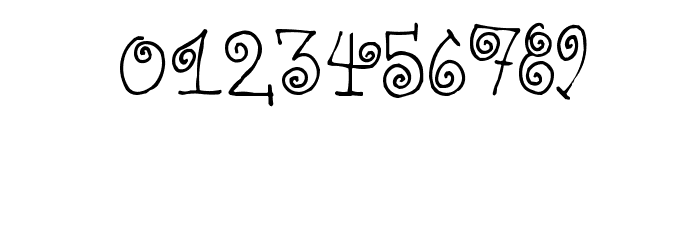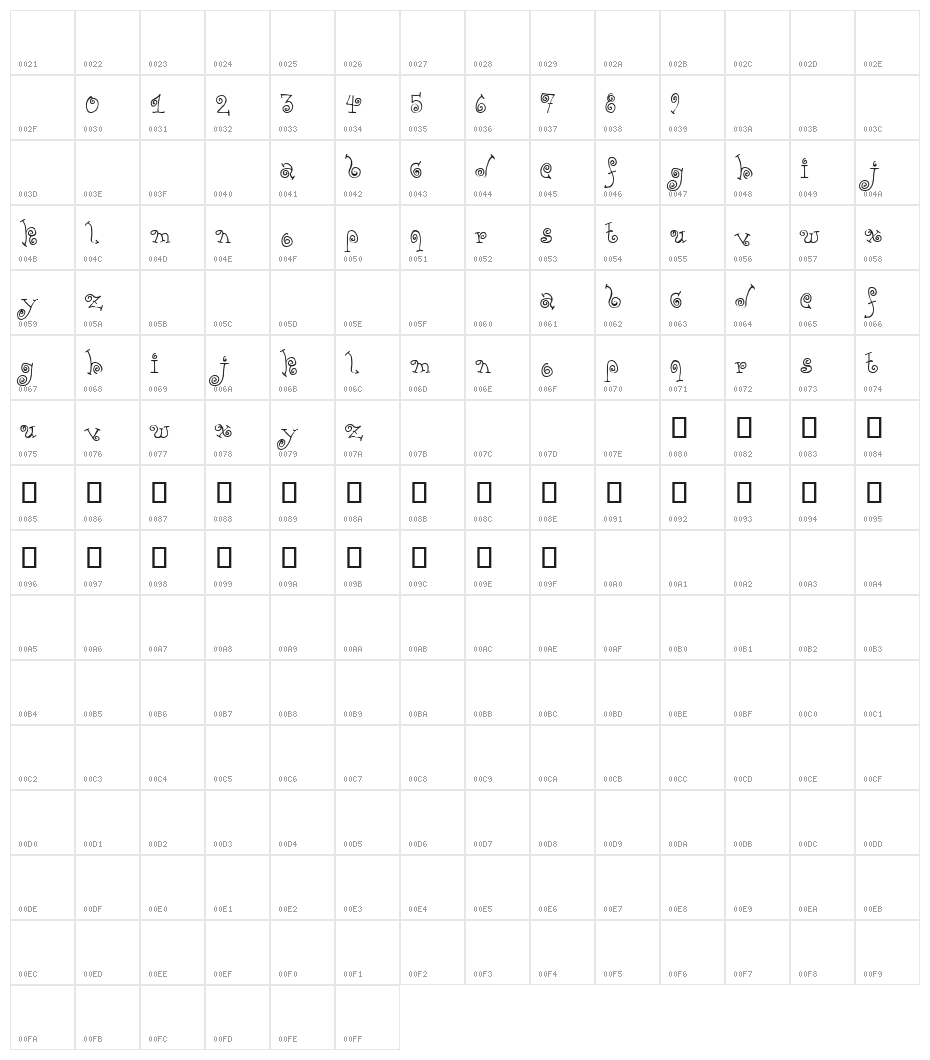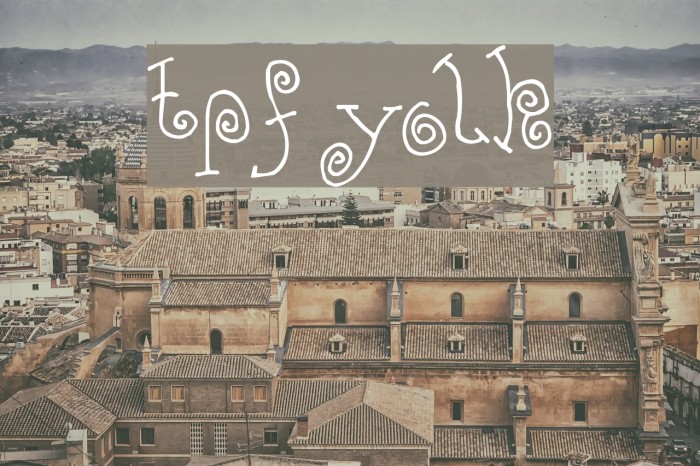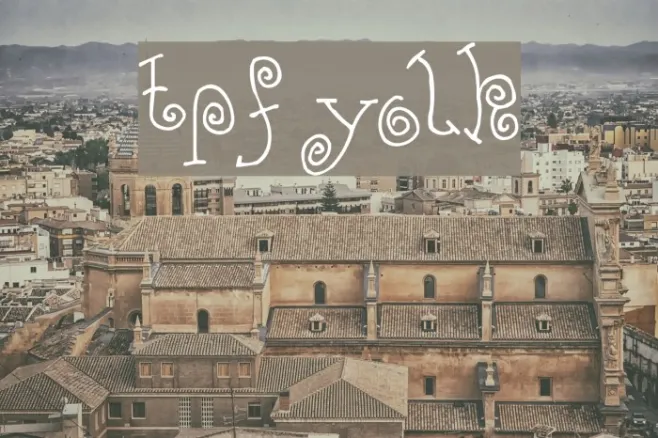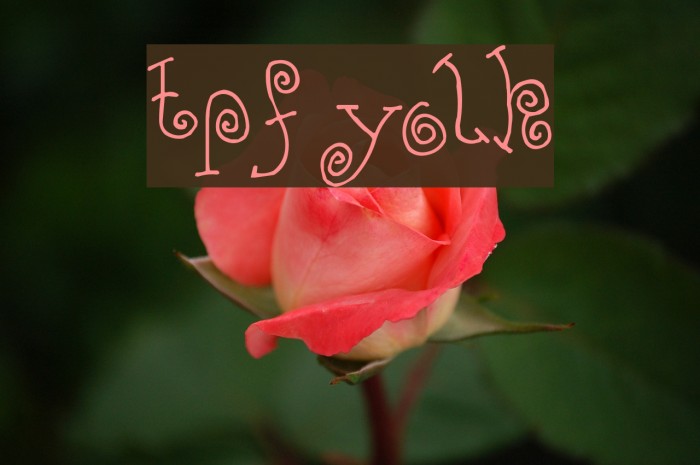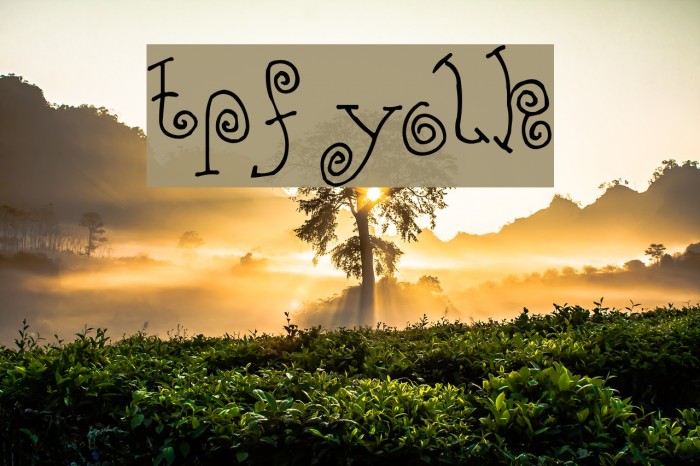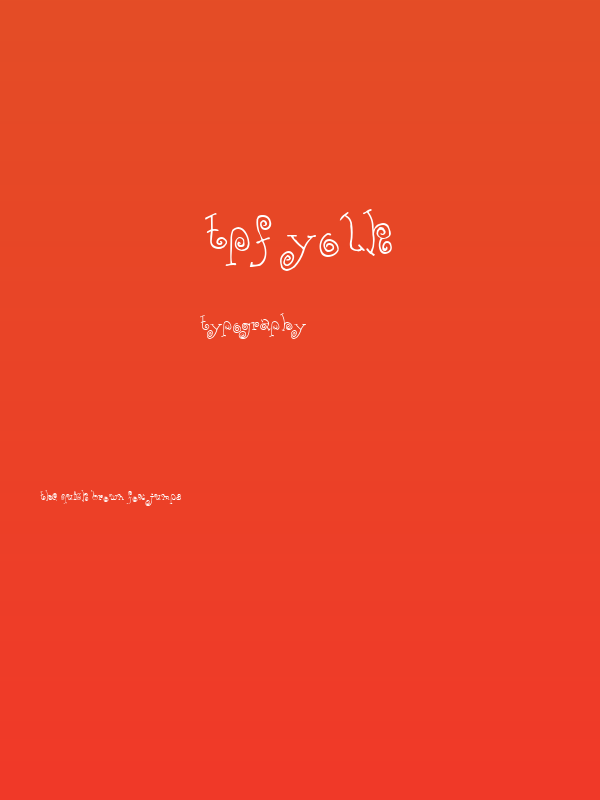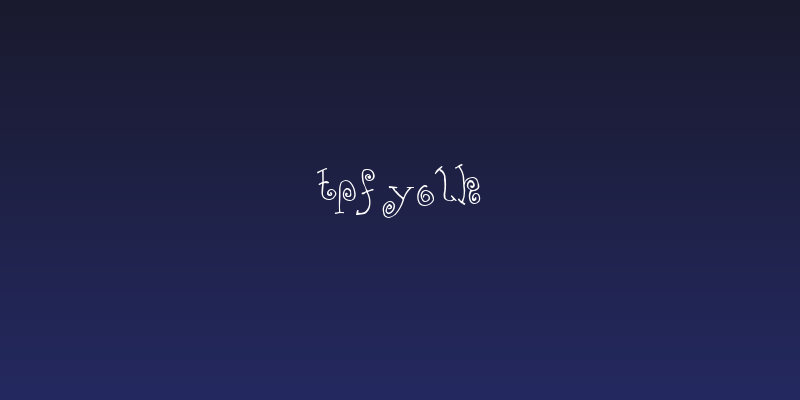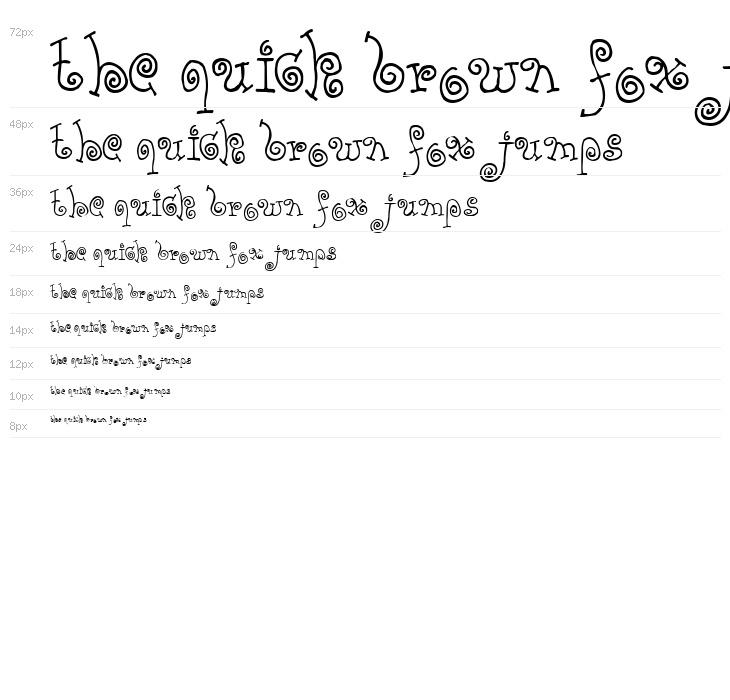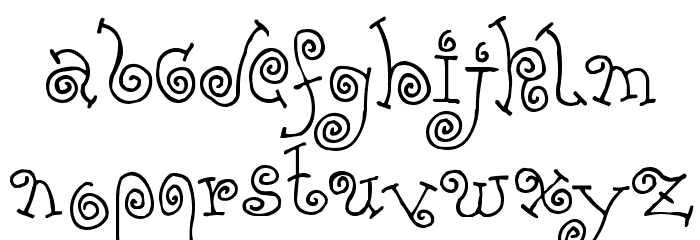
TPF Yolk Font
TPF Yolk Description
This whimsical and playful font features a unique, curly design that adds a sense of fun and creativity to any project. Each character is adorned with swirls and loops, creating an engaging and lively appearance. The font maintains a consistent stroke width, giving it a balanced and cohesive look. Its decorative style makes it perfect for projects that require a touch of whimsy and imagination. The characters are well-spaced, ensuring readability while maintaining its artistic flair. This font is ideal for children's books, creative posters, and playful branding.
| Proposed Projects | Children's books, creative posters, playful branding, invitations, and greeting cards. |